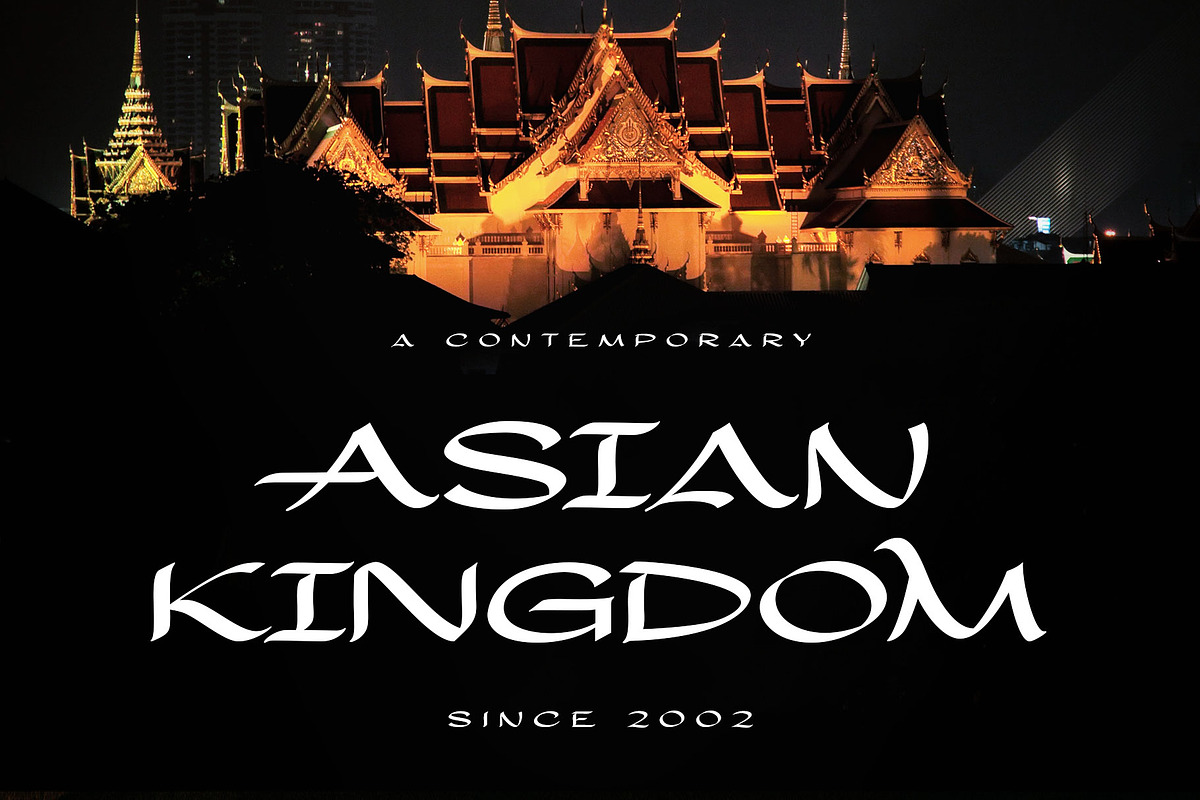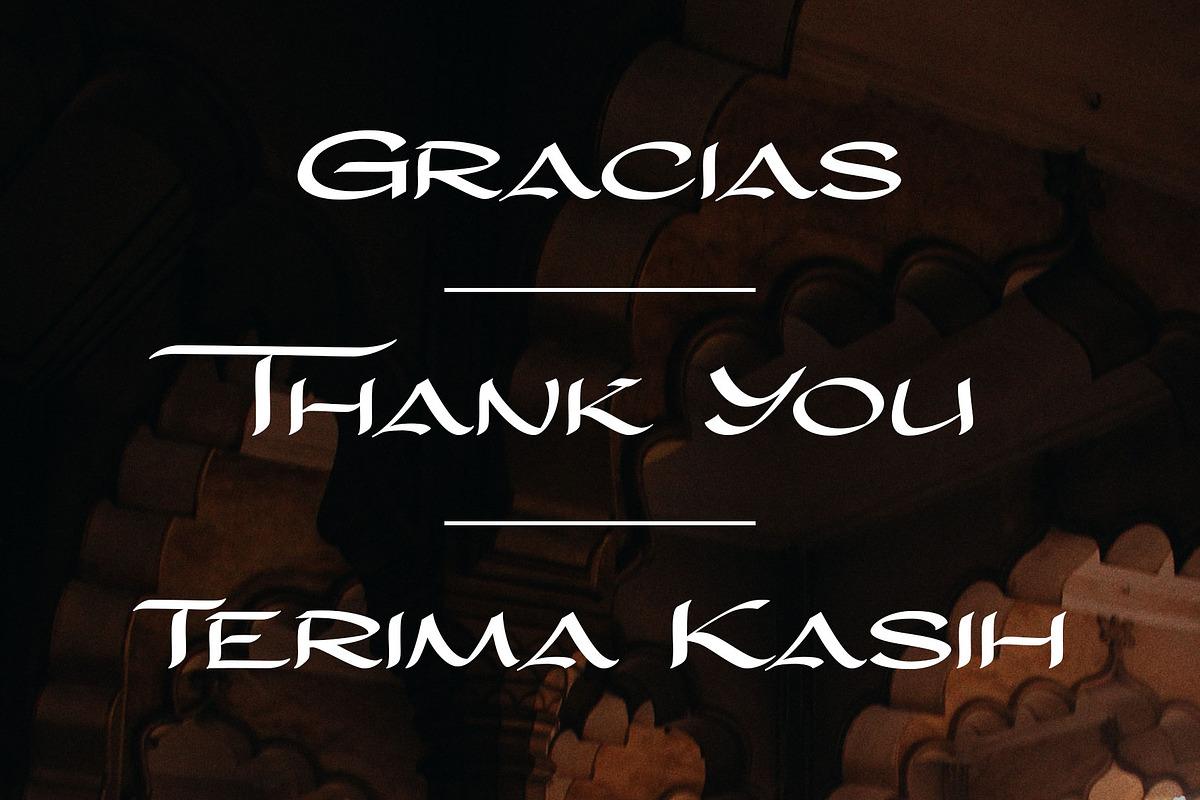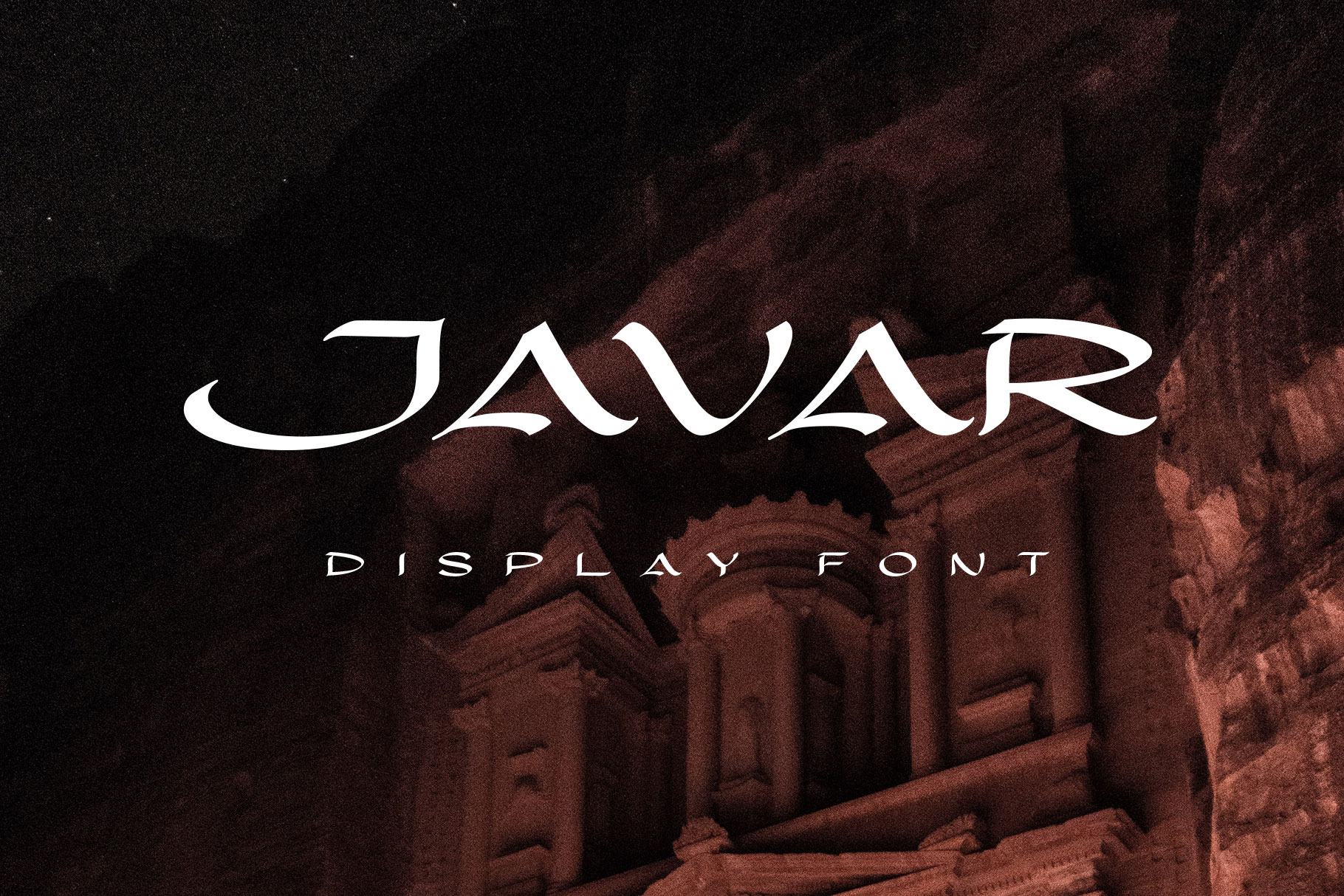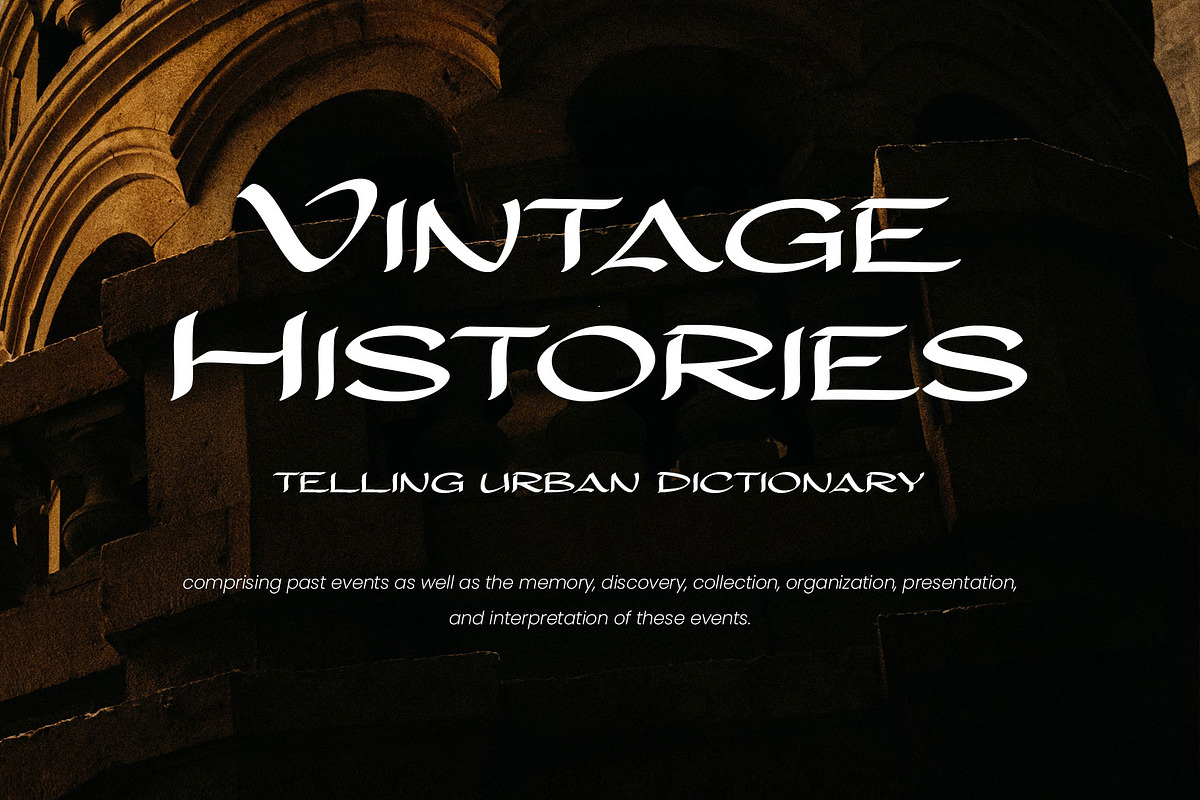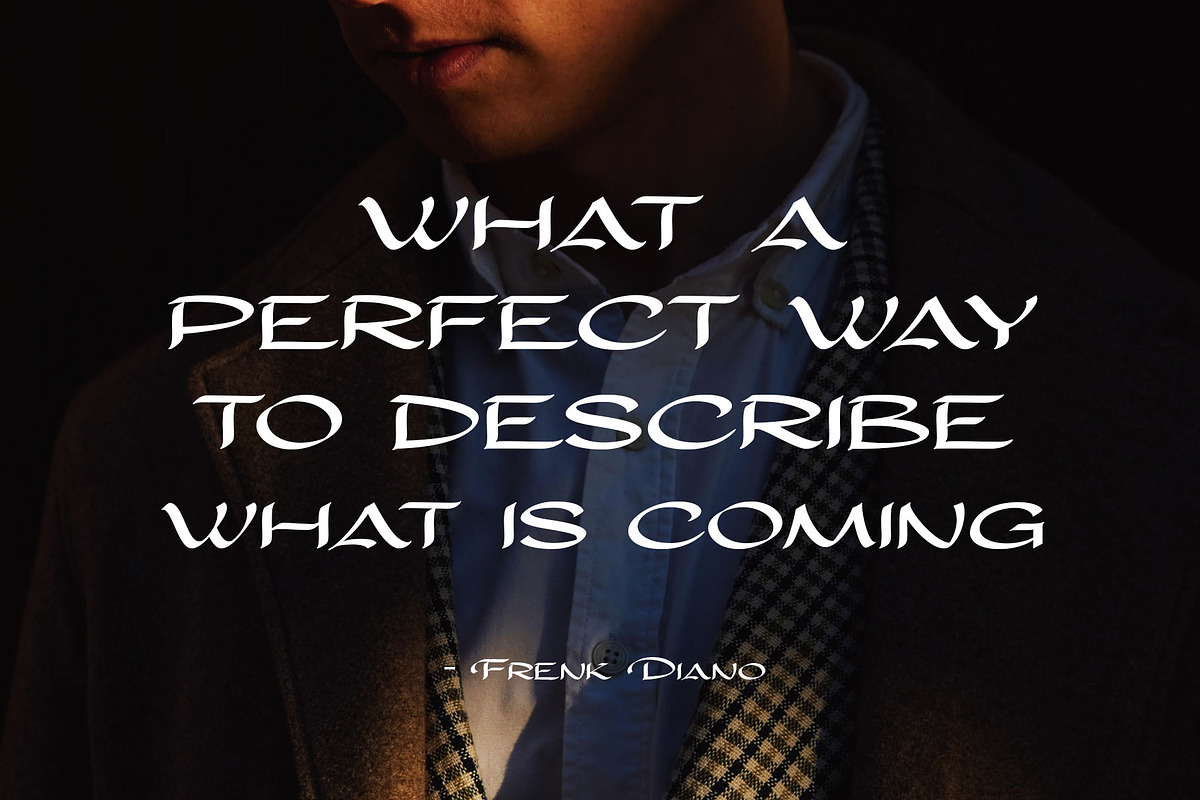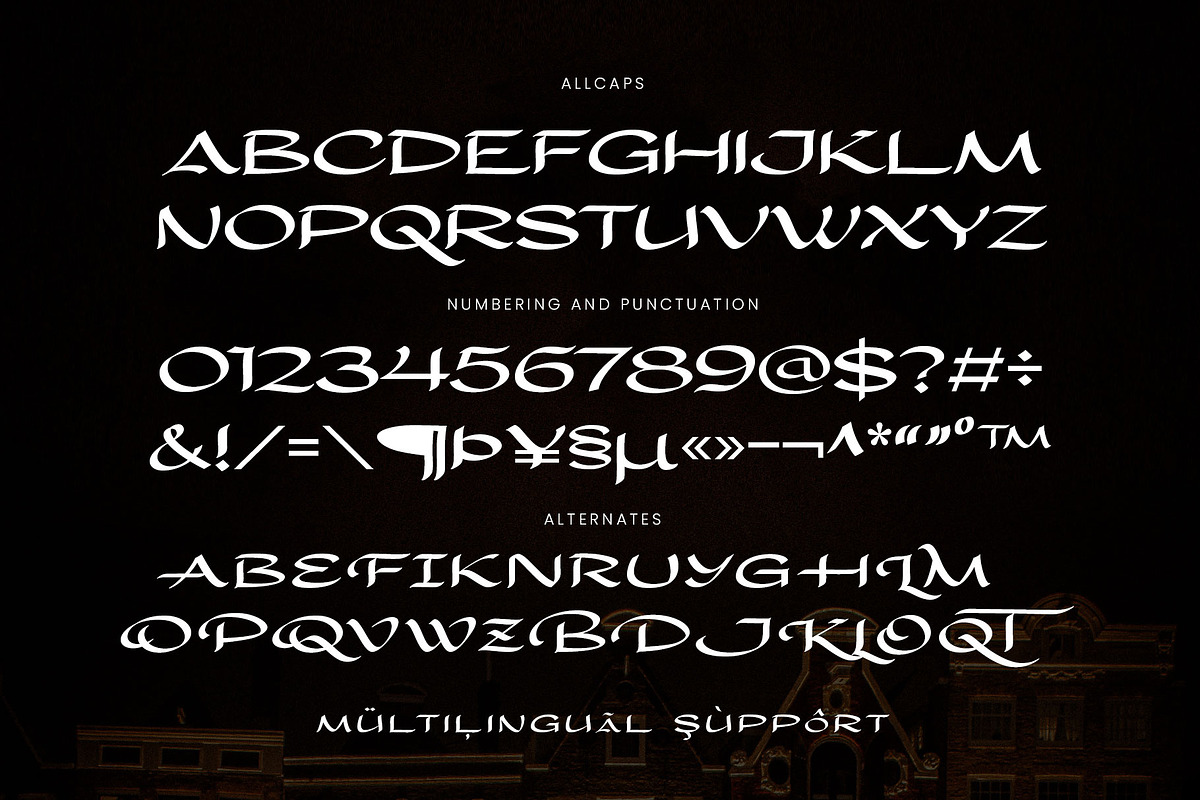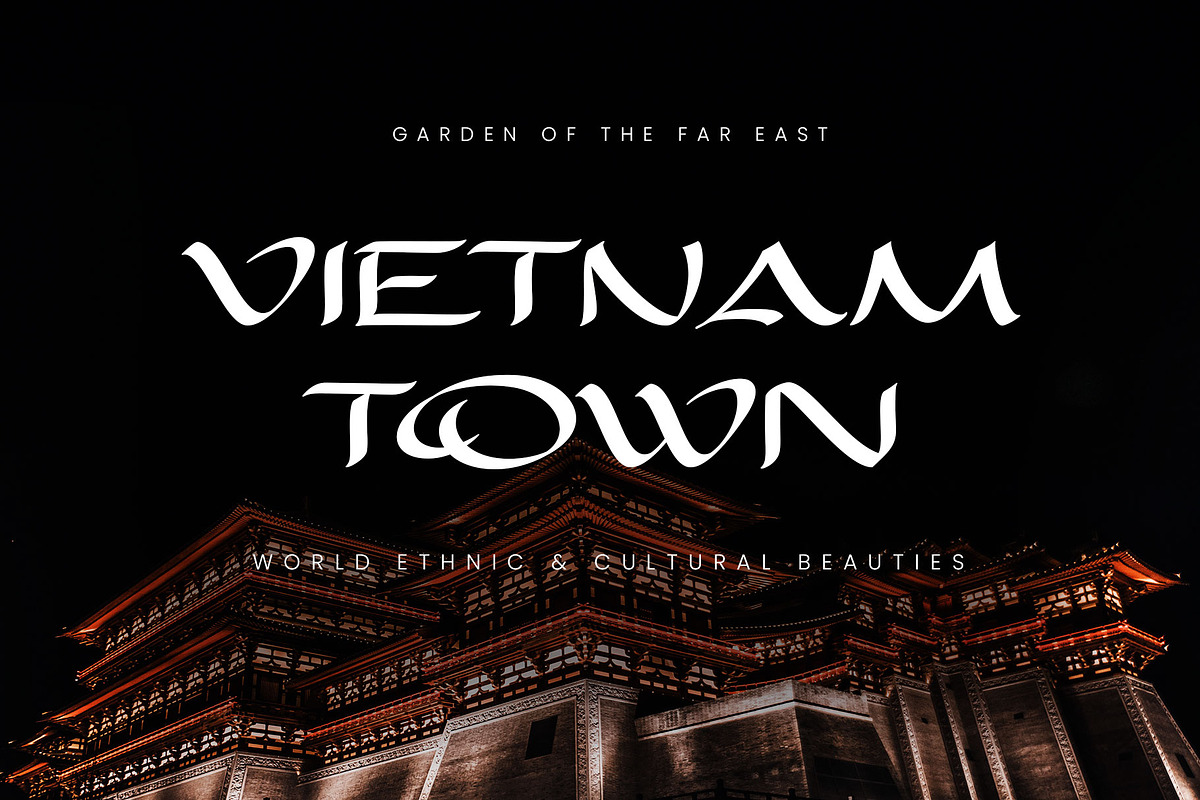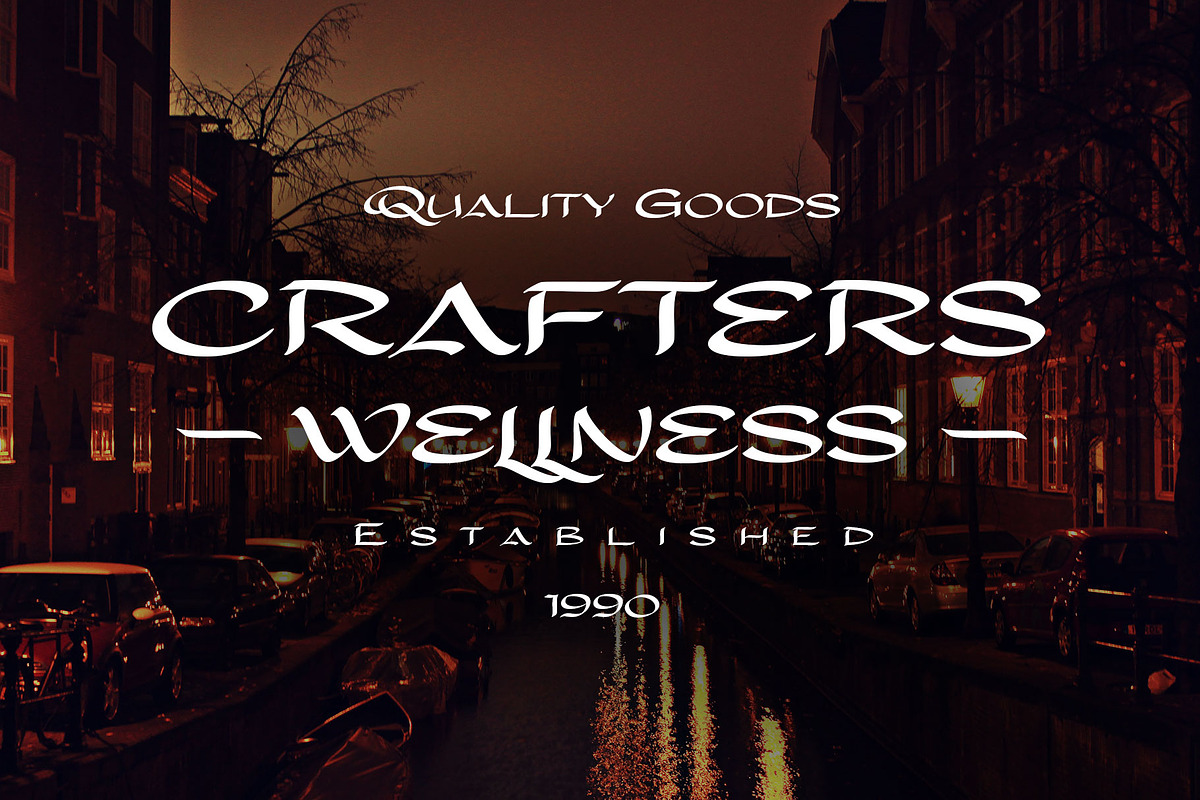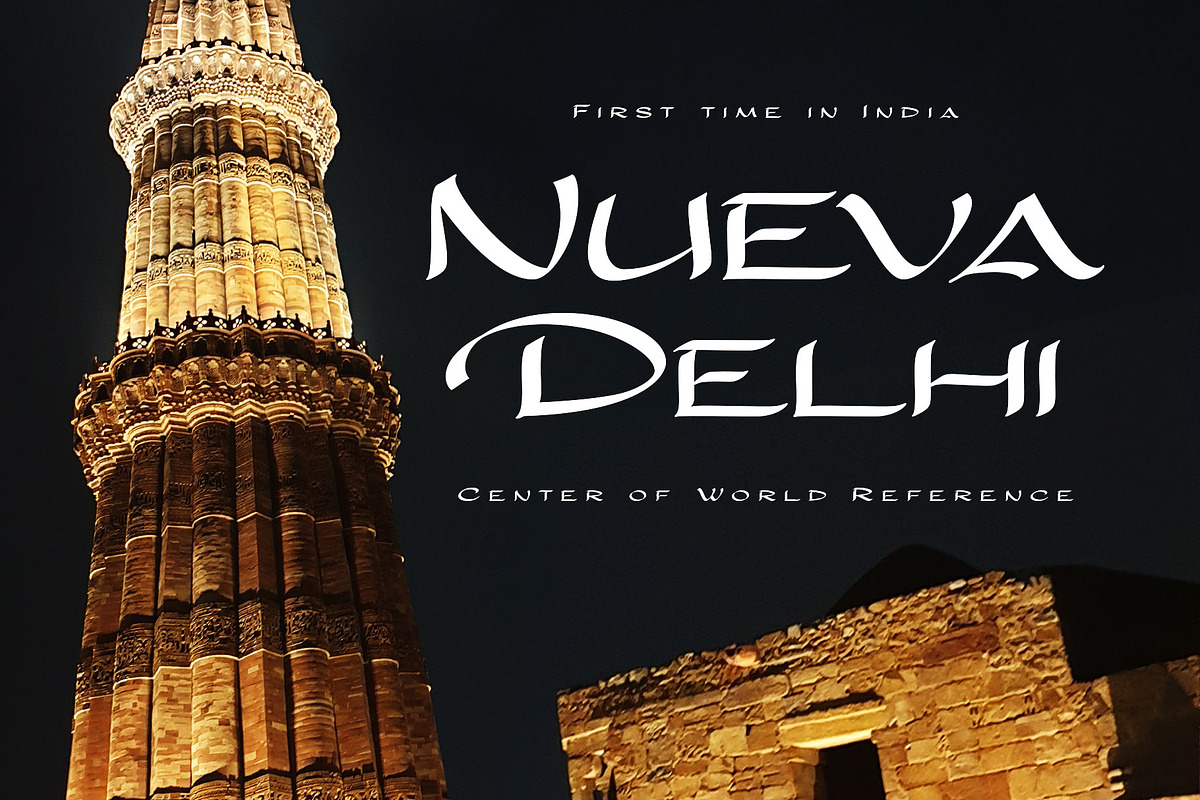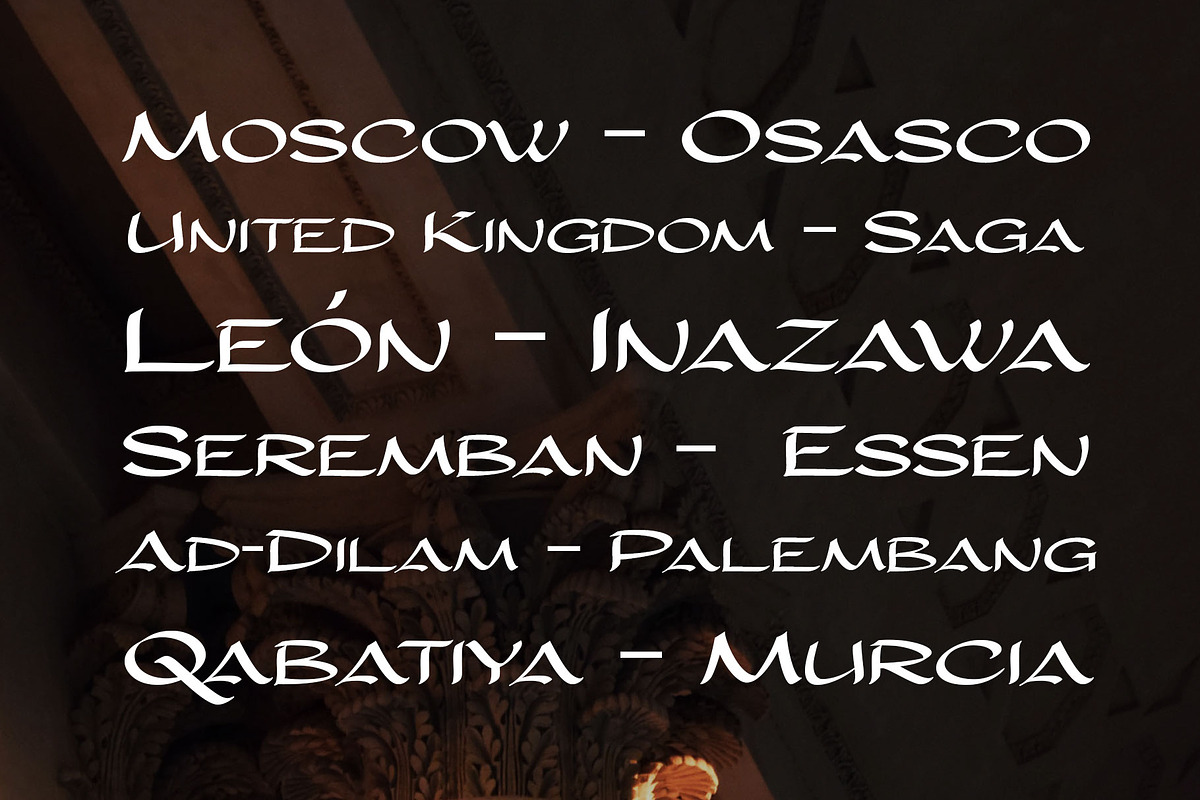
Javar - Display Font
Javar is an all-caps display font. This font is designed in a colossal Middle Eastern style, with dynamic strokes using a flat pen which produces a magnificent and authoritative letterform.
This font has a high historical taste, so it is perfect to be applied to specific themes such as culture, history, religion, kingdom, and battles. Equipped with accented characters, and special characters to boost your design.